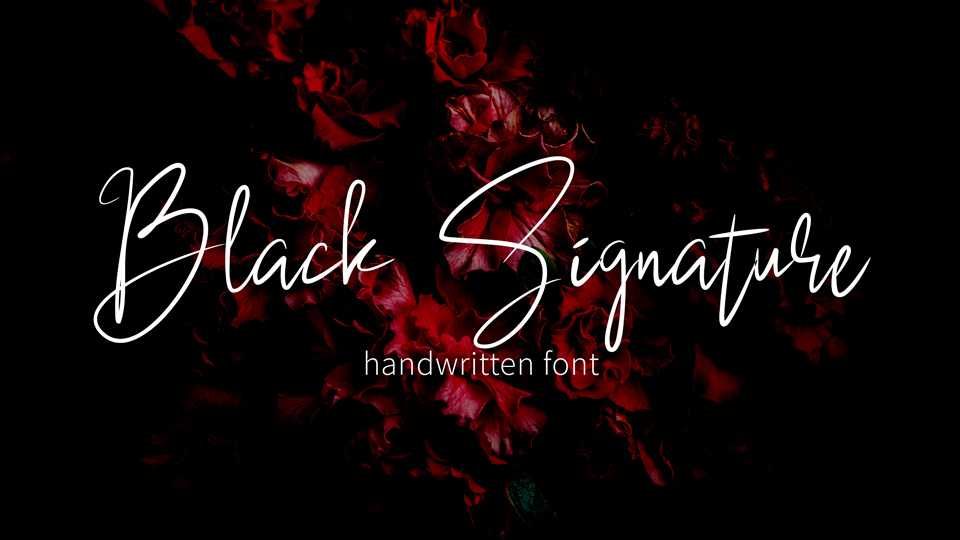
Download Black Signature font, a stylish handwritten script with very natural look. Perfect for personal branding, cards, letters, social media, printed quotes and more.